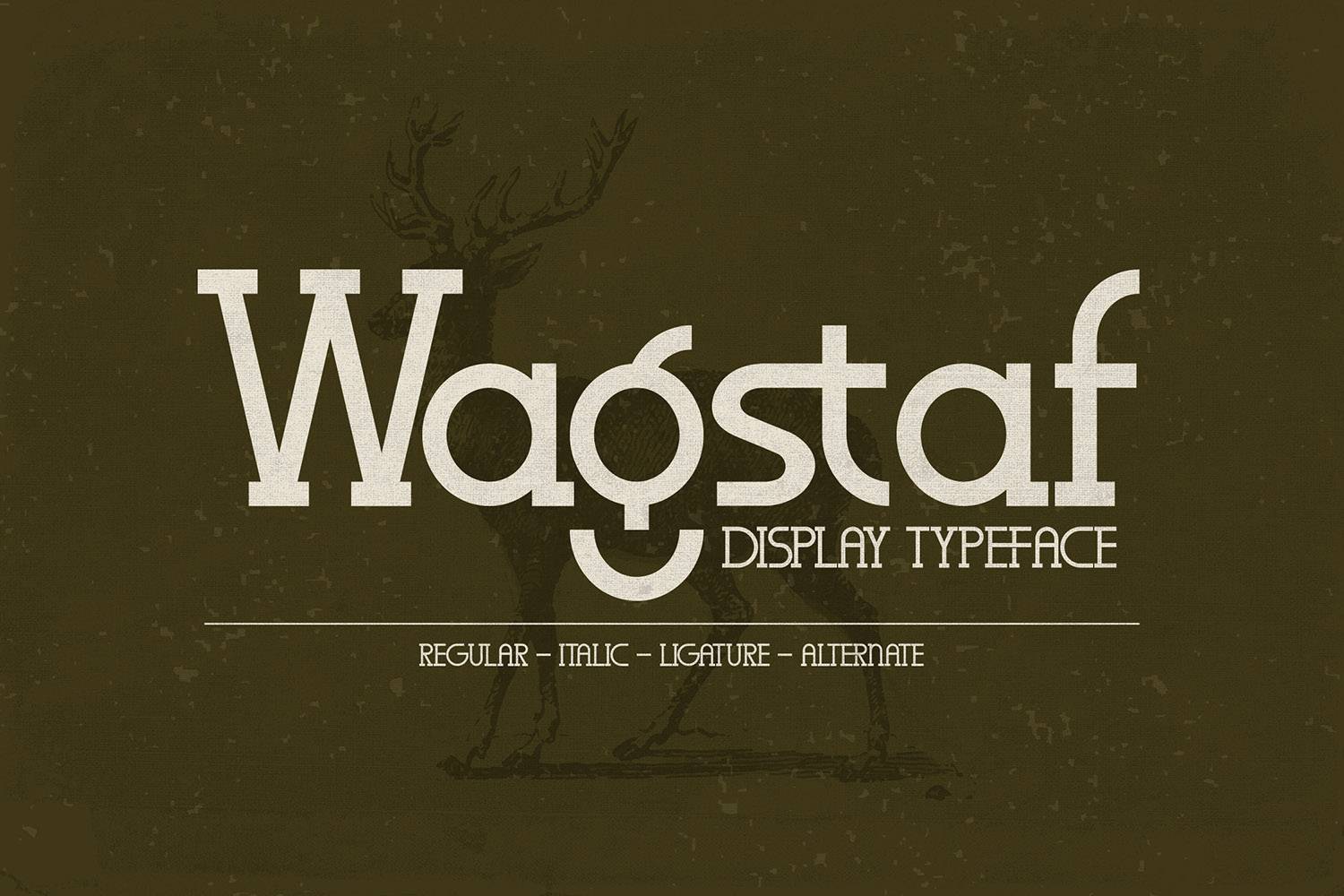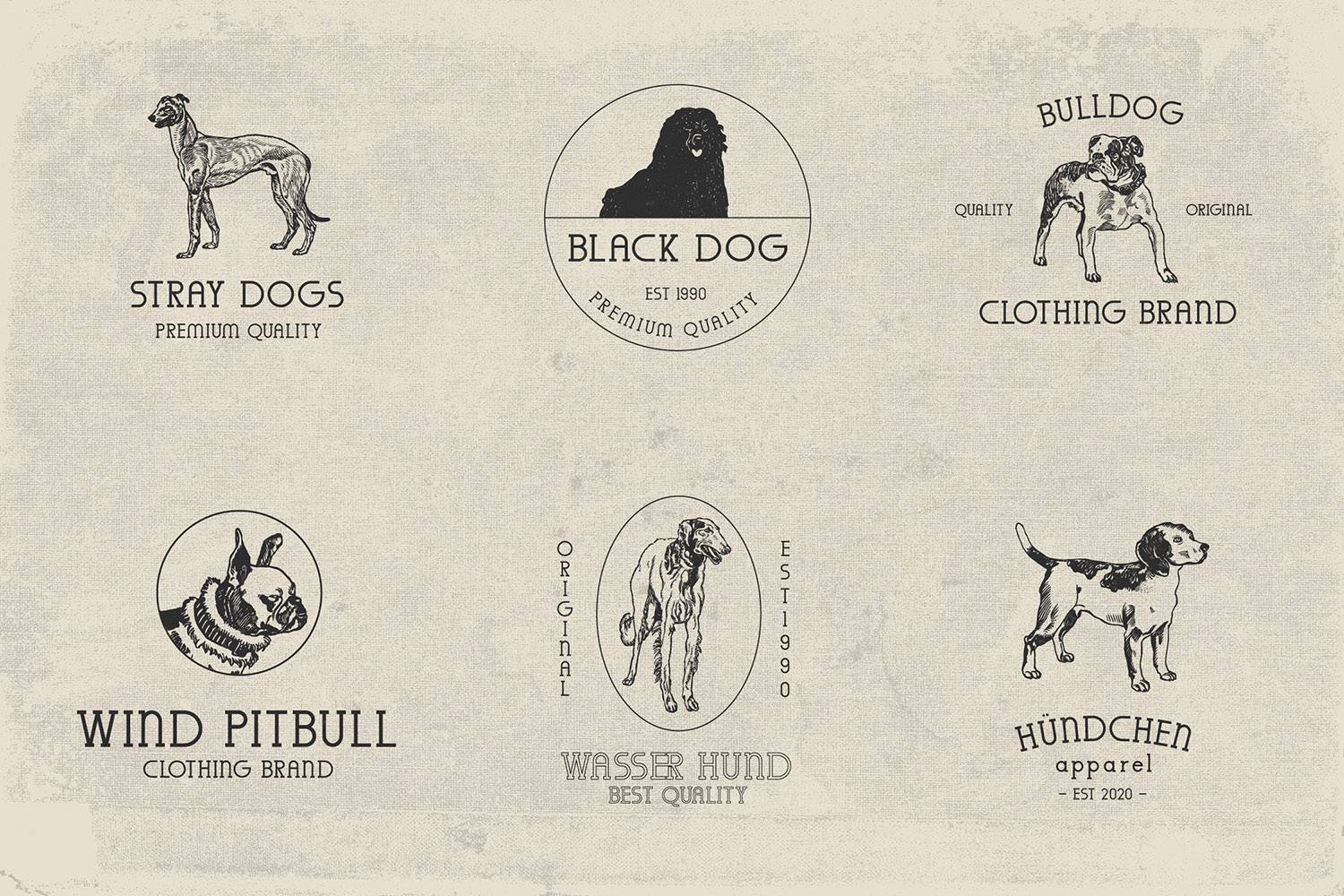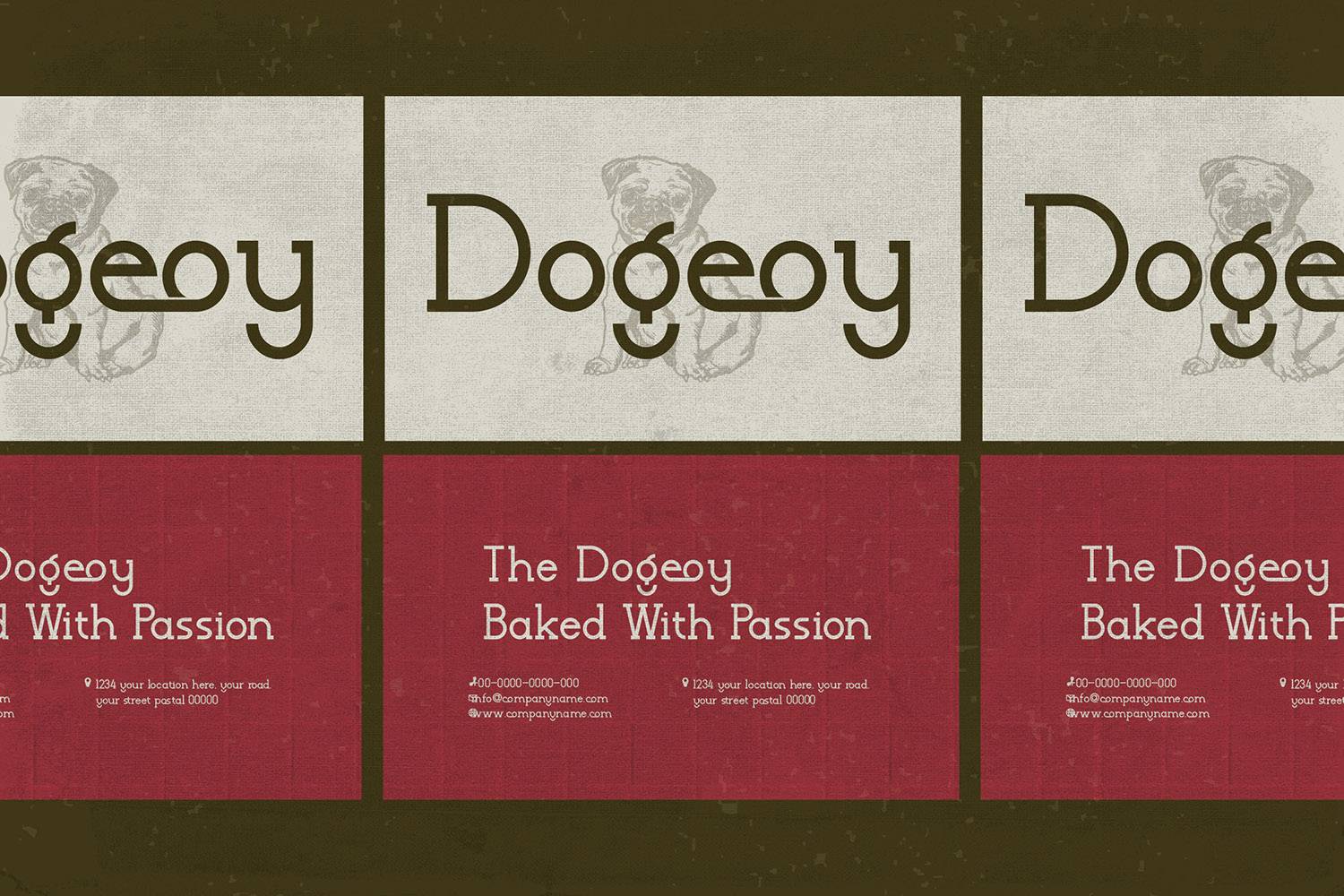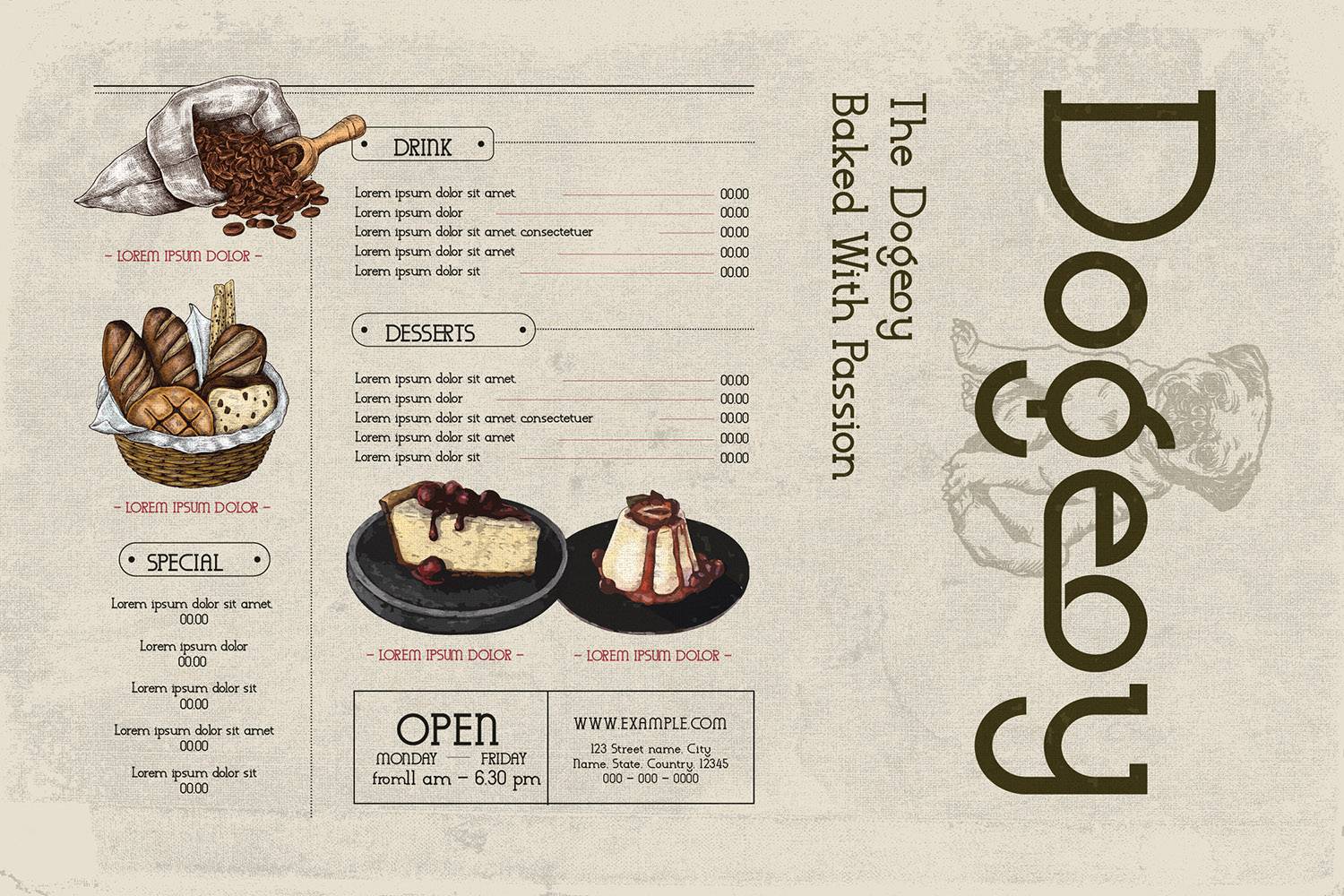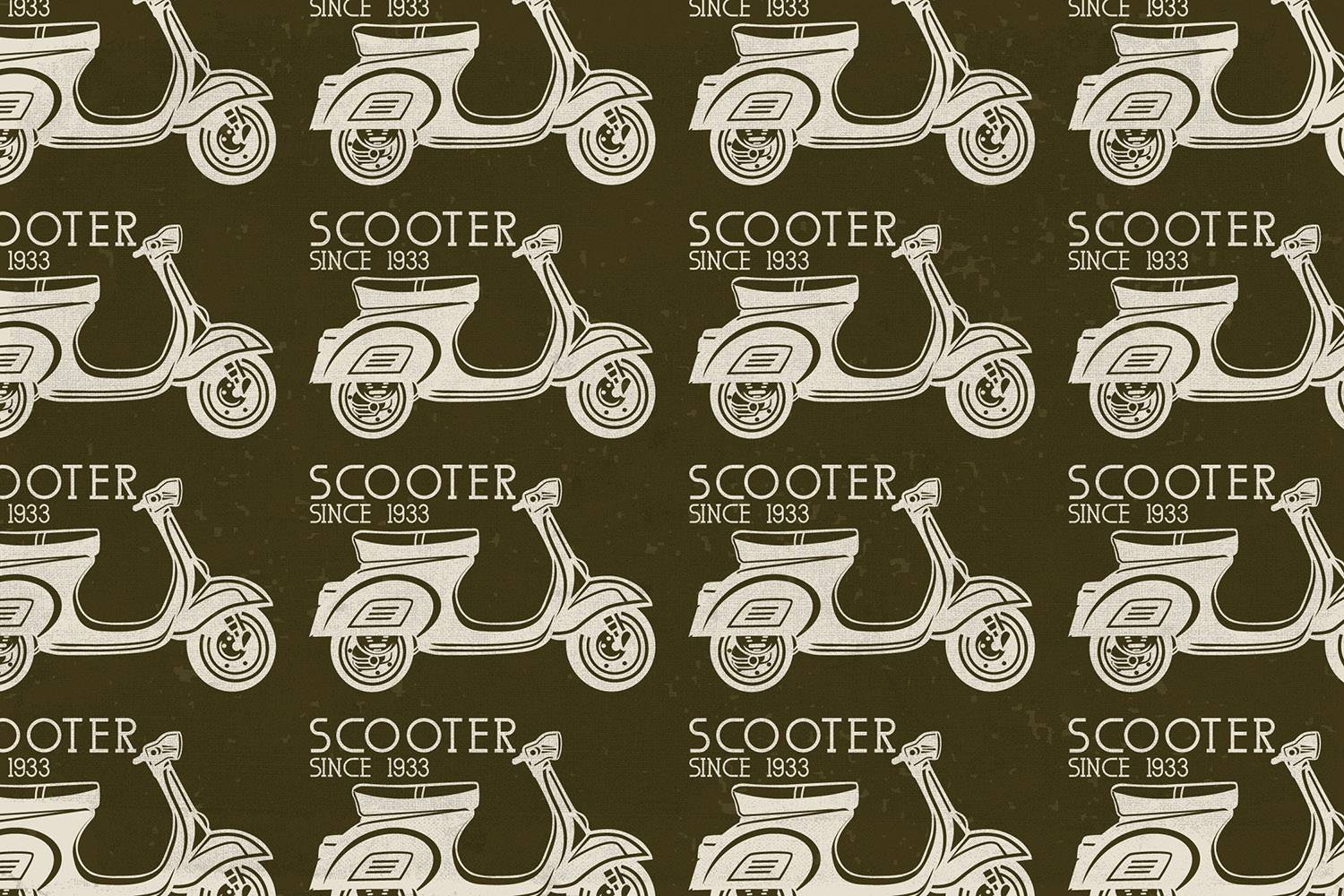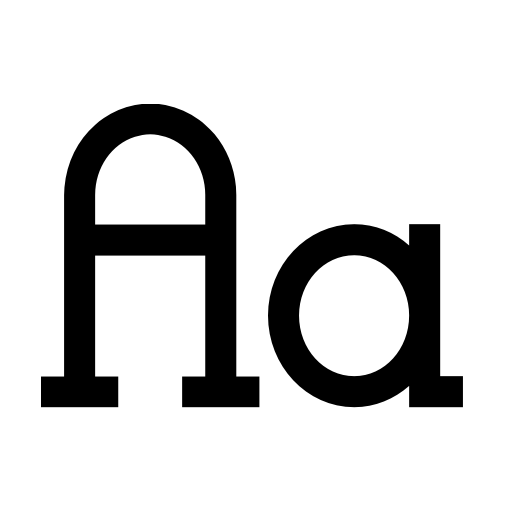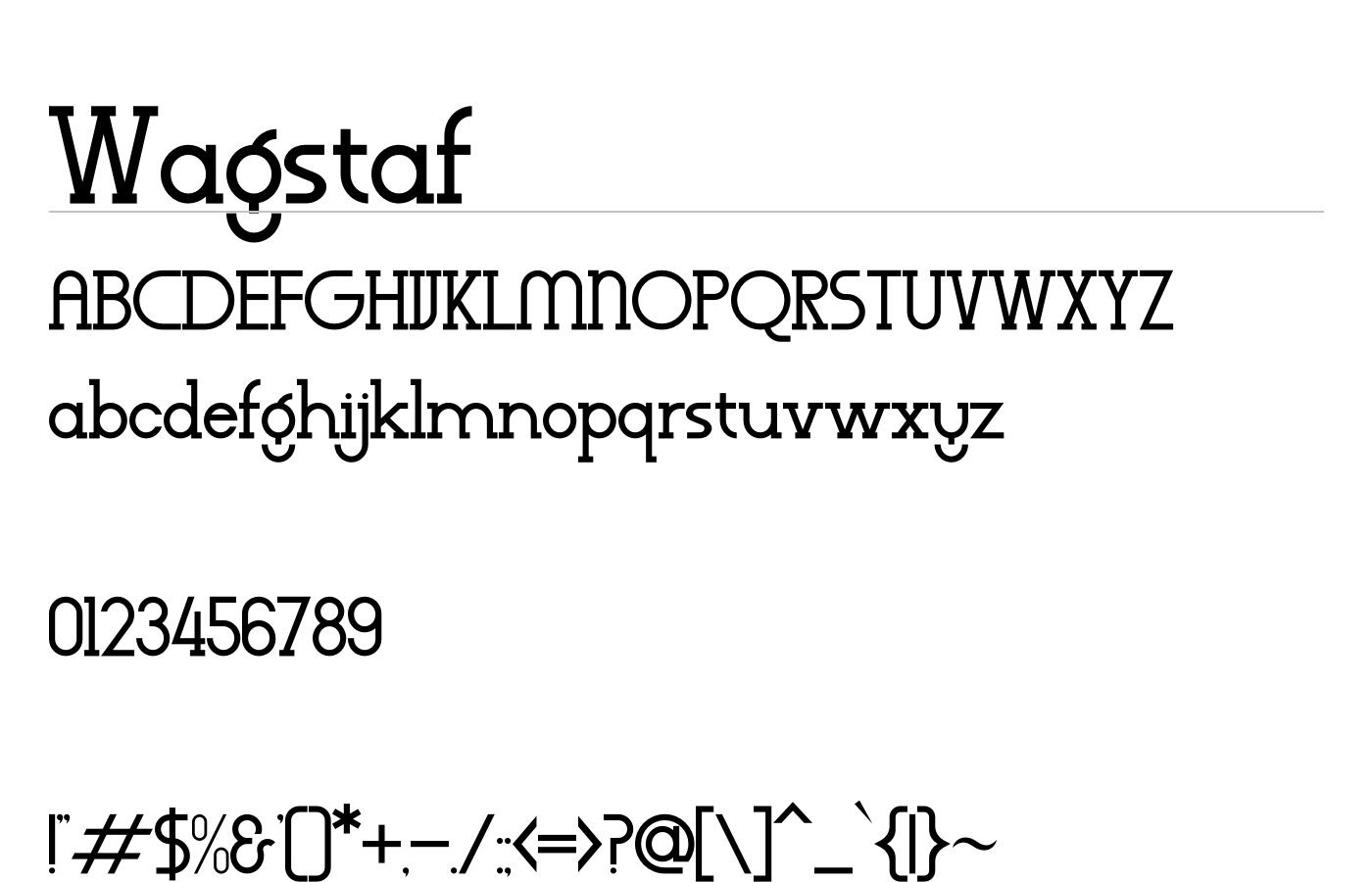
Wagstaf is a distinctive serif font blending vintage charm with modern geometric touches, featuring medium weight and consistent stroke contrast. Its unique letterforms, such as rounded terminals and unusual glyph details, give it a playful yet refined character ideal for creative branding, headlines, and editorial use where a stylish, elegant impact is desired. This font stands out with its balanced readability and artistic flair, making it perfect for projects that need a memorable and sophisticated look.
Wagstaf Font
About Wagstaf Font